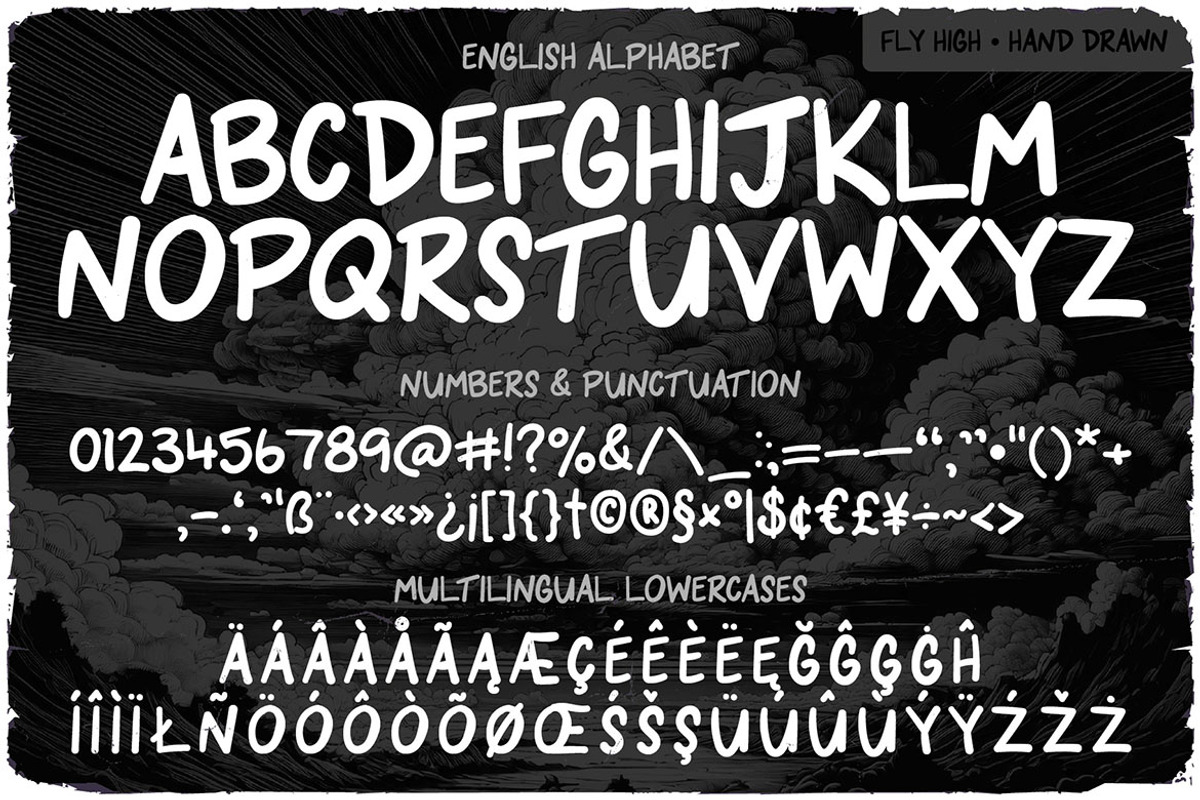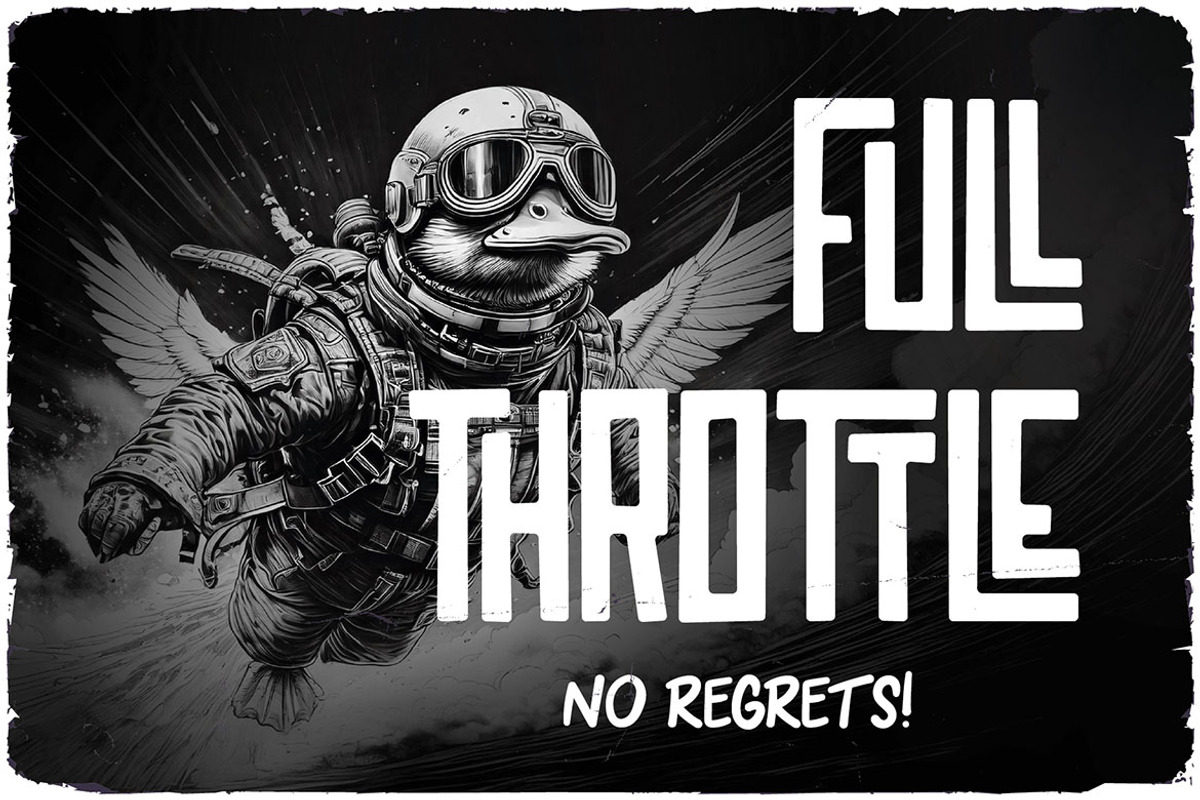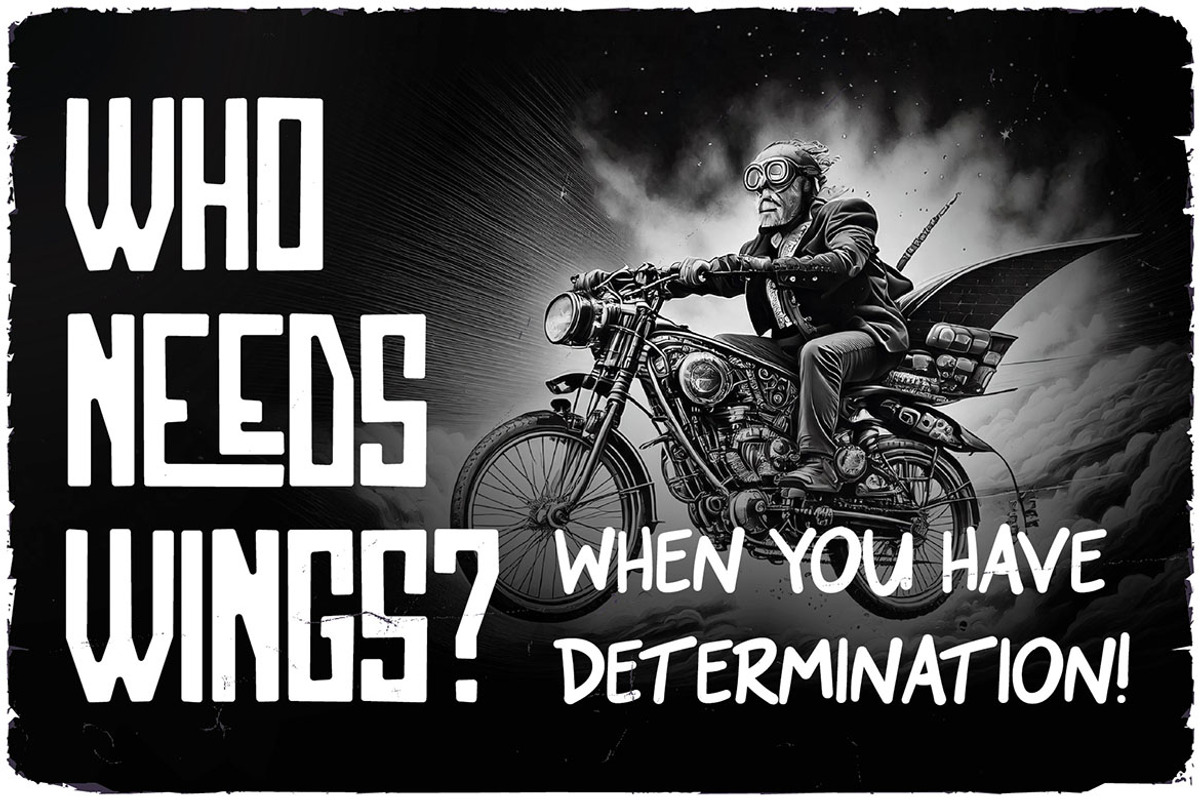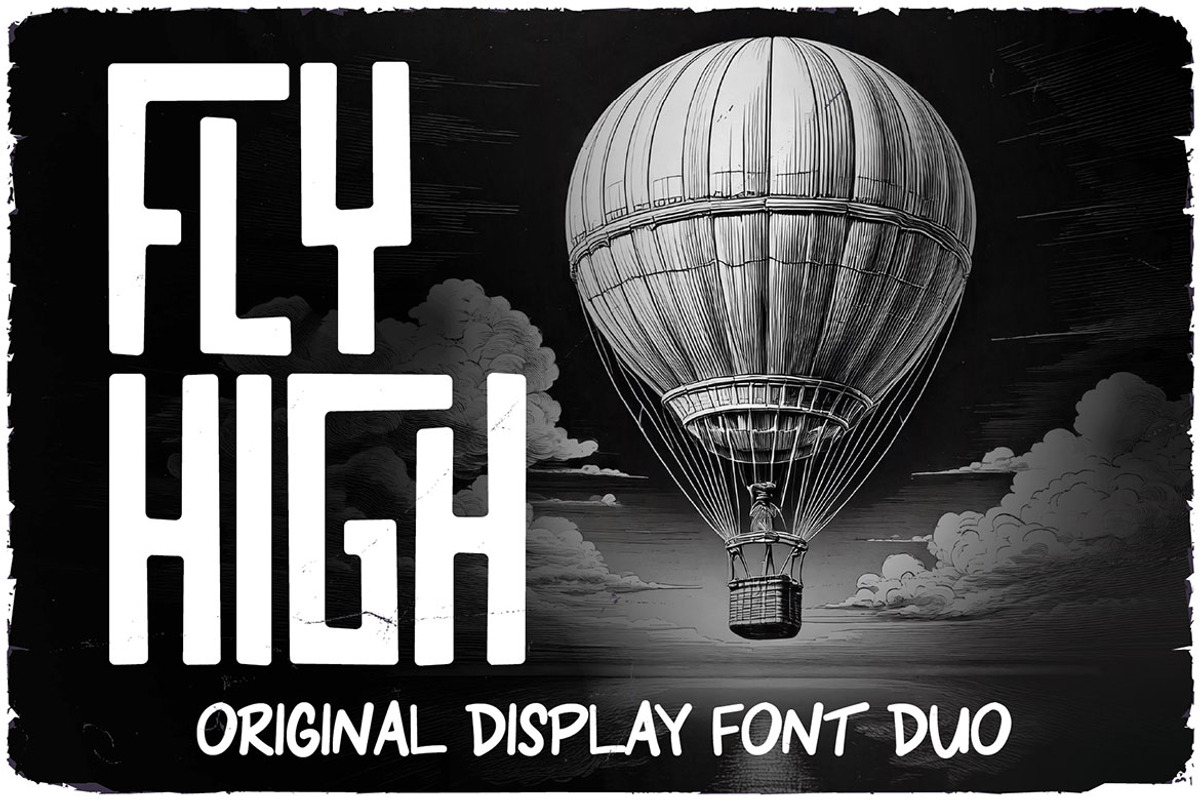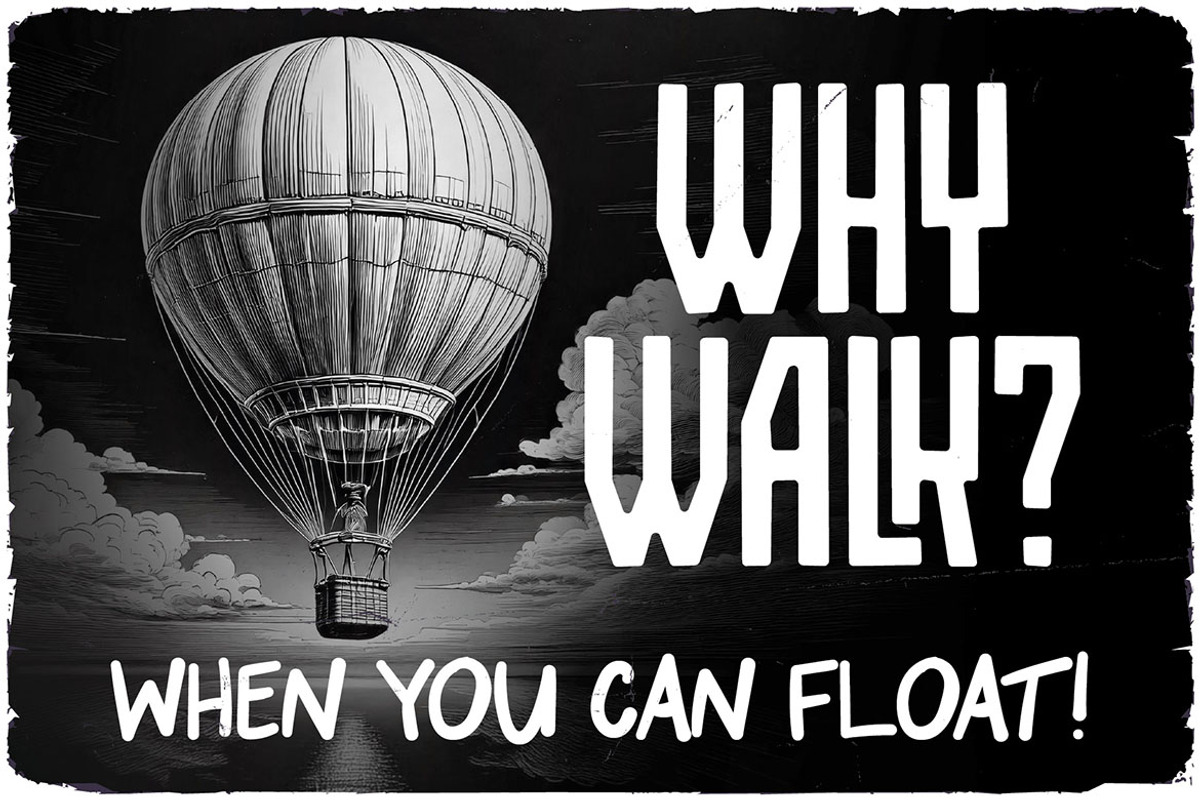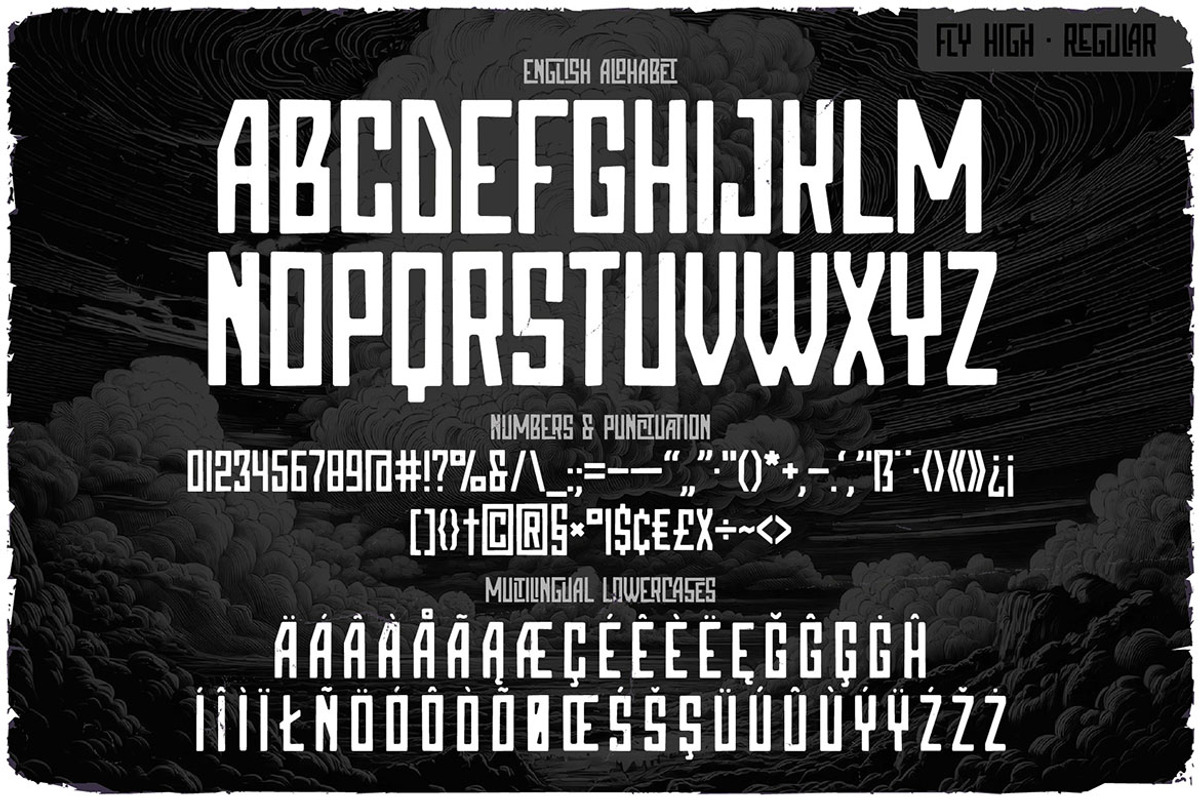
Fly High Font Duo
Unique, playful, funny, casual, simple, retro & handwritten font duo. Comes with multilingual support & 2 font versions (sans & brush) - great for your new logo, monogram or branding project.
- 2 font versions - sans & brush
- Great for your new logo, monogram or branding project